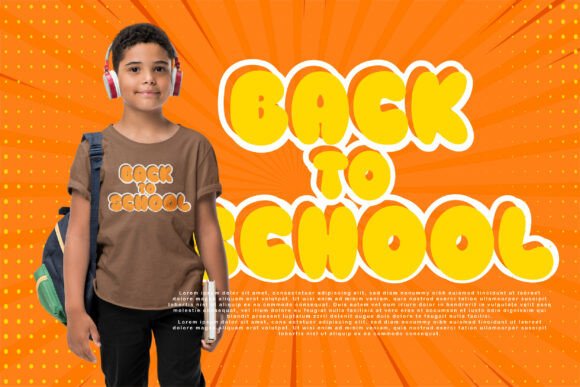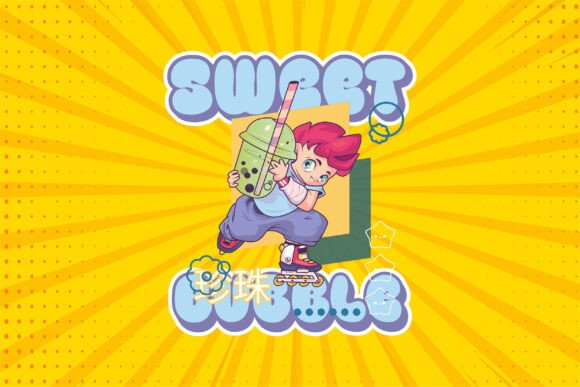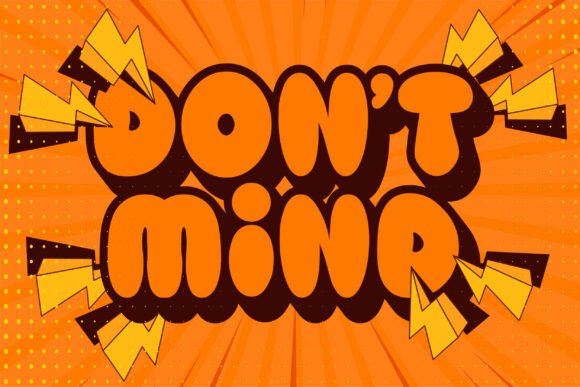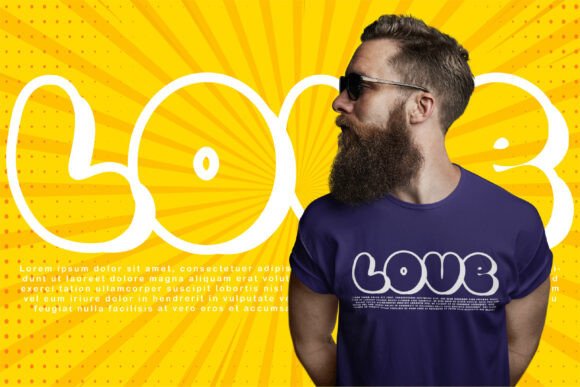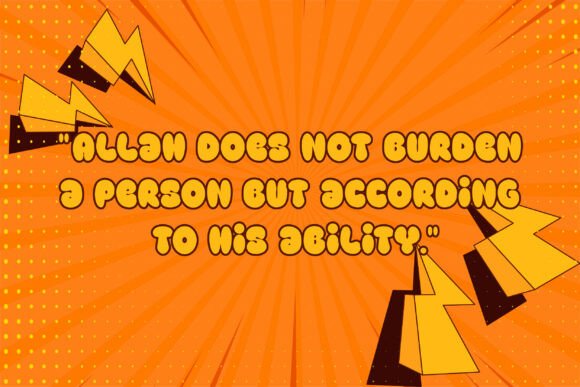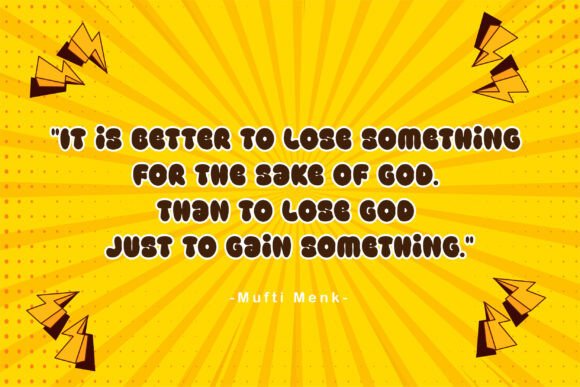
Bring Your Designs to Life with the Magic of Bubble Foam Font
You know that moment when a spark of creativity hits, and you can’t wait to turn your idea into reality? That’s exactly what happened when designers first laid eyes on the Bubble Foam Font. This captivating display font is more than just a stylish addition to your design arsenal – it’s a game-changer.
Bubble Foam Font is a versatile tool designed to elevate your creative projects, from trendy t-shirt graphics to innovative art pieces. Its unique bubble design shines brightly in any design, making it an ideal choice for a wide range of applications. Whether you’re a seasoned designer or a creative enthusiast, Bubble Foam Font is sure to bring your vision to life in a way that’s both visually stunning and memorable.
Bubble Foam Font Key Features
- Character Count: The font includes a vast character set, covering a wide range of languages and characters, including Latin, Cyrillic, and Greek alphabets.
- Unique Characteristics: The Bubble Foam Font features a unique, hand-drawn design with a playful and whimsical feel, making it perfect for creative and artistic projects.
- Font Styles: The Bubble Foam Font includes multiple font styles, including Regular, Italic, Bold, and Bold Italic, providing users with a range of options to suit their design needs.
Bubble Foam Font Review
Overall, I think the Bubble Foam Font has some nice qualities, but it’s not without its limitations. Let’s dive into what works well and what doesn’t. ✨
- Unique and Playful Design: The font’s bubbly, foam-like aesthetic is certainly eye-catching and can add a touch of whimsy to your design projects.
- High Contrast: The font’s bold lines and contrasting colors make it easy to read, even at smaller sizes.
- Customization Options: The font offers a range of styles and colors, allowing you to tailor it to your specific design needs.
However, there are some limitations to consider. ⚠️
- Limited Legibility: While the font is easy to read at larger sizes, it can become difficult to decipher at smaller sizes due to its playful, irregular design.
- Overuse Risk: The font’s unique design can make it prone to overuse, which can lead to a dated or gimmicky look.
- Not Suitable for Body Text: Due to its playful design, the font is best used for headings or titles, rather than body text.
Overall, I think the Bubble Foam Font is a fun and versatile addition to any design project, but it’s essential to use it judiciously to avoid overuse and ensure maximum impact.
Tips for Getting the Most Out of the Bubble Foam Font
To maximize the effectiveness of the Bubble Foam font:
- Use it for headings and titles to create visual interest.
- Pair it with solid fonts for body text to create contrast.
- Experiment with font sizes and colors to achieve the desired effect.
Common Use Cases for the Bubble Foam Font
The Bubble Foam font is suitable for:
- Children’s products and packaging.
- Summer and outdoor-themed designs.